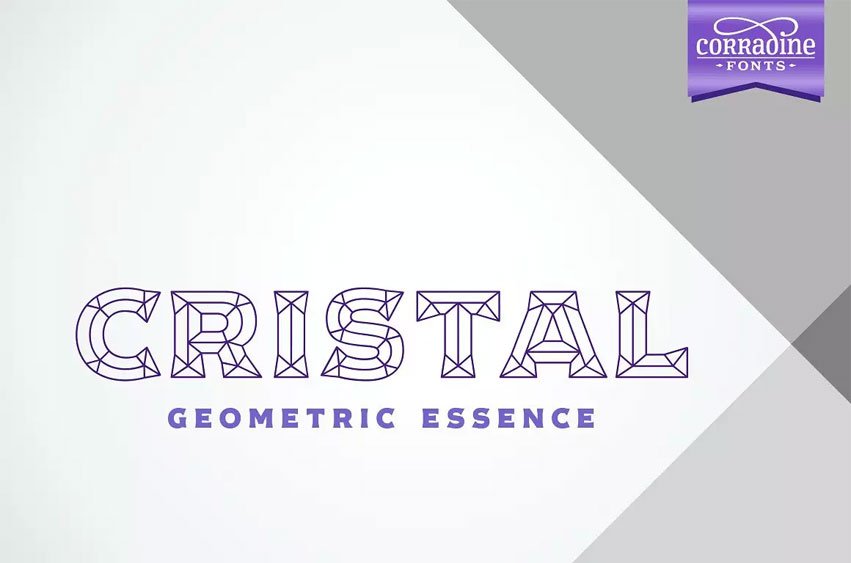
Cristal Font
Cristal Font is a contemporary typeface. Cristal draws its design influence from sharp and faceted cuts found in beveled art forms. The geometric linear design of each letter in Cristal creates a beautiful elegance because it resembles finely shaped gemstones. Users can choose from two different weights to ensure Cristal functions effectively across varying sizes because it provides both positive and negative versions that improve visual contrast, together with depth. The solid typeface format will sustain better readability conditions throughout extensive passages.
The Cristal collection contains two key parts known as Cristal Dingbats and Cristal Frames, which add complementary elements to create a strong graphic system through 15 fonts.